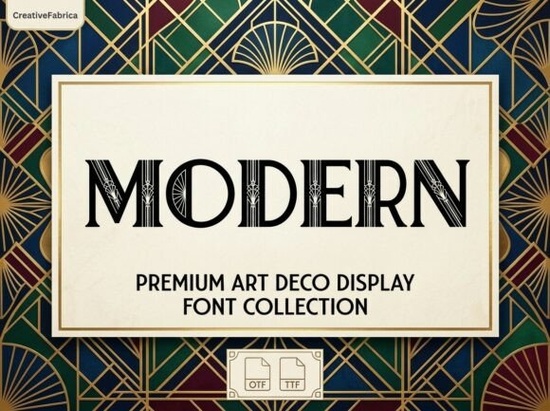
If you are looking to add a touch of 1920s glamour to your next project, the Modern Font is a fantastic choice. This premium Art Deco display typeface brings the luxury and opulence of the jazz age straight to your screen. Whether you are designing invitations for a Great Gatsby-themed party or creating upscale branding for a boutique hotel, this gorgeous typeface delivers the vintage elegance you need.
What makes this Art Deco typeface stand out?
The design of this typeface is heavily inspired by the iconic architectural lines of the 1920s. Instead of just being a basic retro style, it features intricate linear embellishments and geometric fan details. You will also notice stylized filigree built directly into the stems of the bold letterforms. These subtle details make it perfect for high-end creative projects where you want an unforgettable touch of class. The sweeping curves and sharp angles work together to create a sense of movement and sophistication that basic typefaces simply cannot achieve.
What types of projects work best with this style?
Because of its luxurious feel, this typeface shines in specific applications. It is beautifully suited for:
- Luxurious wedding stationery and save-the-dates
- Upscale restaurant menus and cocktail lists
- Vintage liquor packaging and craft beer labels
- Striking editorial mastheads and magazine covers
Print-on-demand sellers and small business owners can also use this style to create premium merchandise. Think about vintage-inspired apparel, decorative throw pillows, or elegant greeting cards. If you are working on a project that needs a bit more edge or a different vintage vibe, you might also want to explore other options. For instance, if you need something with a bit more grit for a music poster, you could look into a textured grunge style. On the other hand, if you are designing a sports-themed event and need something blocky and strong, a collegiate block style might be a better fit. For softer, more romantic projects, a delicate gallery script could work beautifully.
How do I pair it with other typefaces?
When working with highly detailed display fonts, pairing them correctly is crucial for readability. Since the main title has so many intricate details, you want to keep your body text clean and simple. A sleek sans-serif or a highly legible serif will balance the design perfectly. Visual hierarchy is key here; you want the reader's eye to be drawn to the ornate title first, then smoothly transition to the readable body copy.
If you need a strong, bold companion for your subheadings, you might consider a thick display companion that holds its own without competing for attention. Alternatively, if your project requires a more geometric and structured look, an architectural block style can provide a nice contrast to the sweeping curves of the main title.
Where can I find more inspiration for this aesthetic?
Getting the right vibe for your 1920s or vintage project often requires looking at historical references. You can find a lot of inspiration for this specific aesthetic by searching for Modern typography examples online. Seeing how other designers use geometric shapes and linear embellishments can give you great ideas for your own layouts. Pay attention to how they use negative space and color palettes to enhance the vintage feel without making the design look cluttered.
Quick tips for using display fonts in your layouts
- Keep it brief: Use this typeface for short headlines, logos, or single words. Long paragraphs will be hard to read and lose their impact.
- Give it breathing room: Increase your line height and letter spacing slightly to let the intricate filigree details shine without touching each other.
- Watch the contrast: Pair the ornate title with a very simple, clean body font to avoid visual clutter and maintain readability.
- Check your colors: Gold, deep emerald, and rich burgundy pair exceptionally well with this Art Deco style to bring out the vintage glamour.
Before you finalize your design, always print a test page or view it at 100% zoom on your screen to ensure the fine details remain crisp and clear.